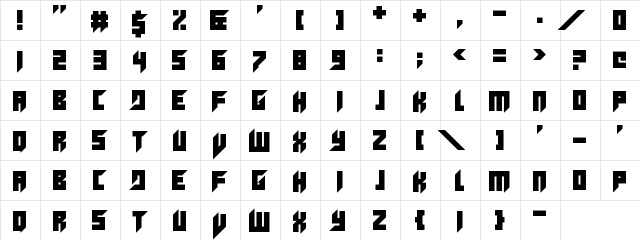
Clutching Toth Regular
| Designer | NAL |
Clutching Toth is a composed and adaptable typeface that performs quietly and consistently across a wide range of design contexts.